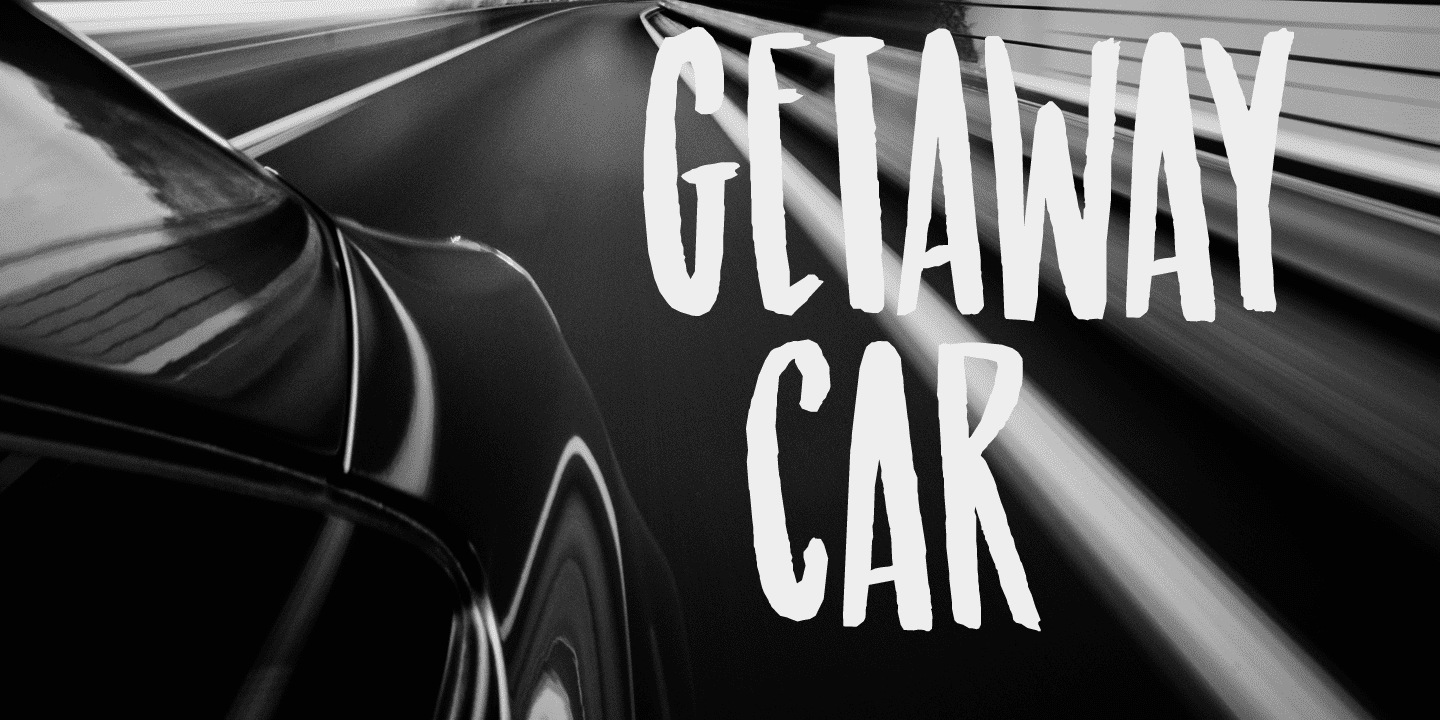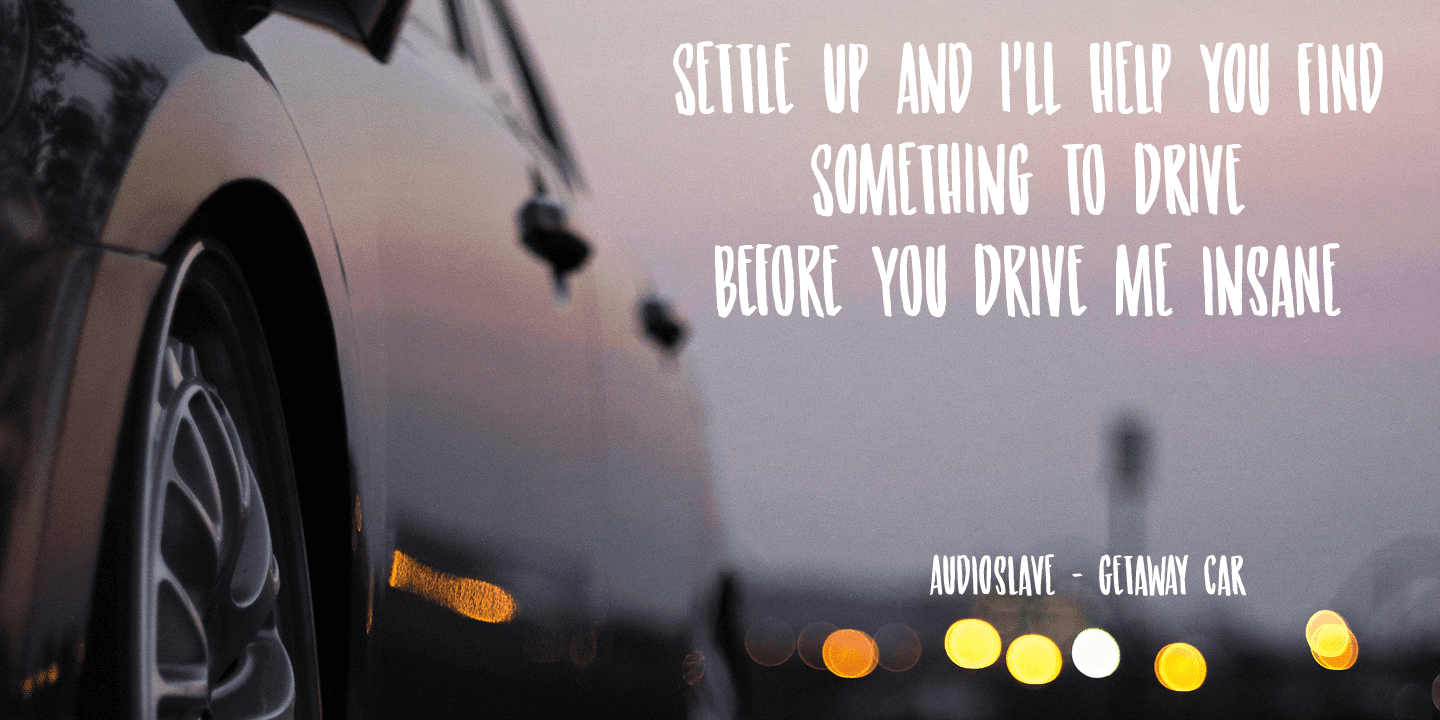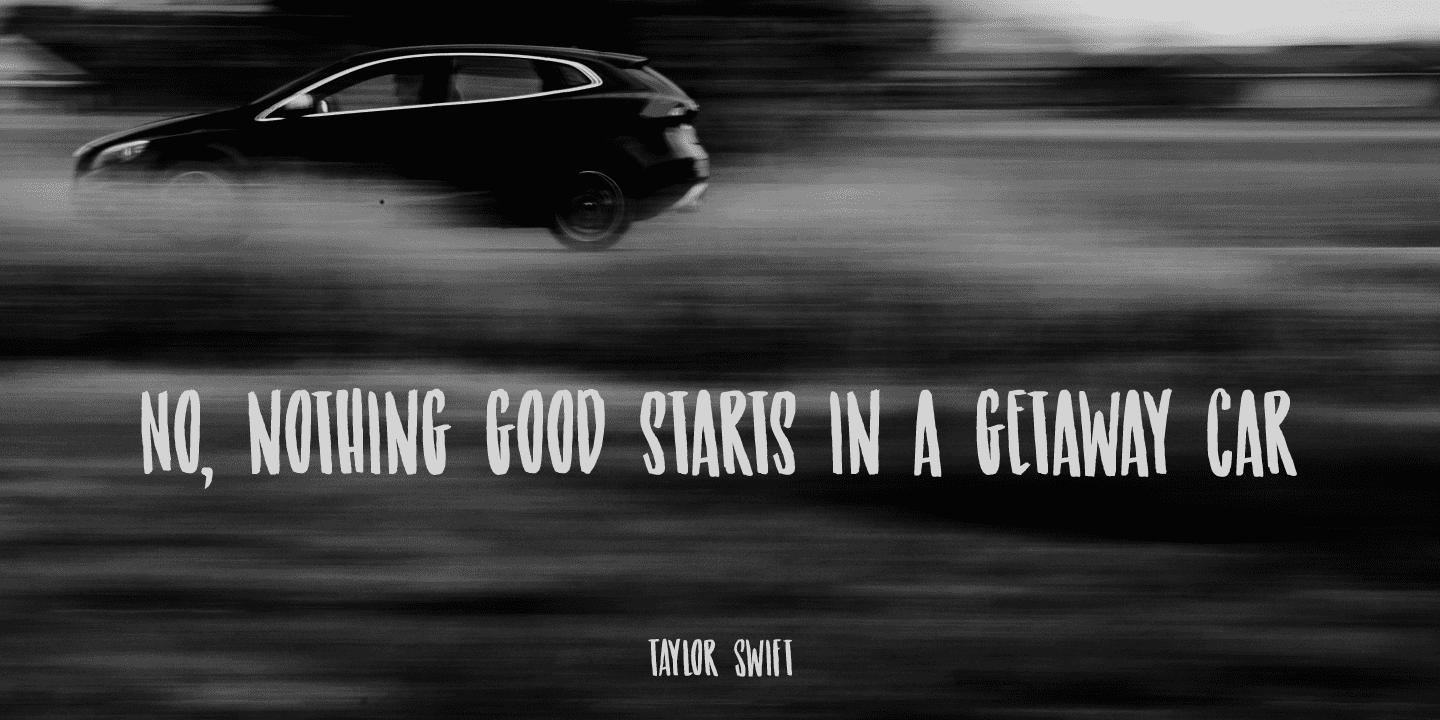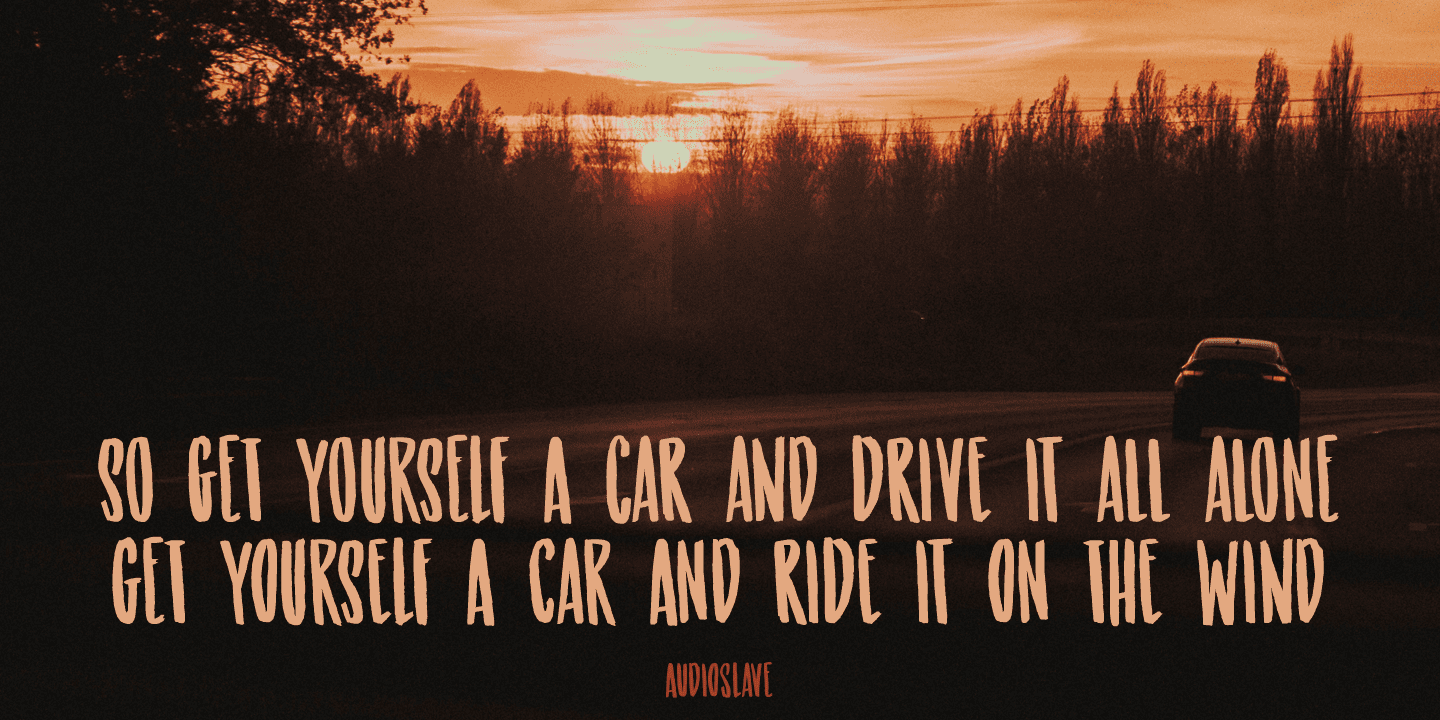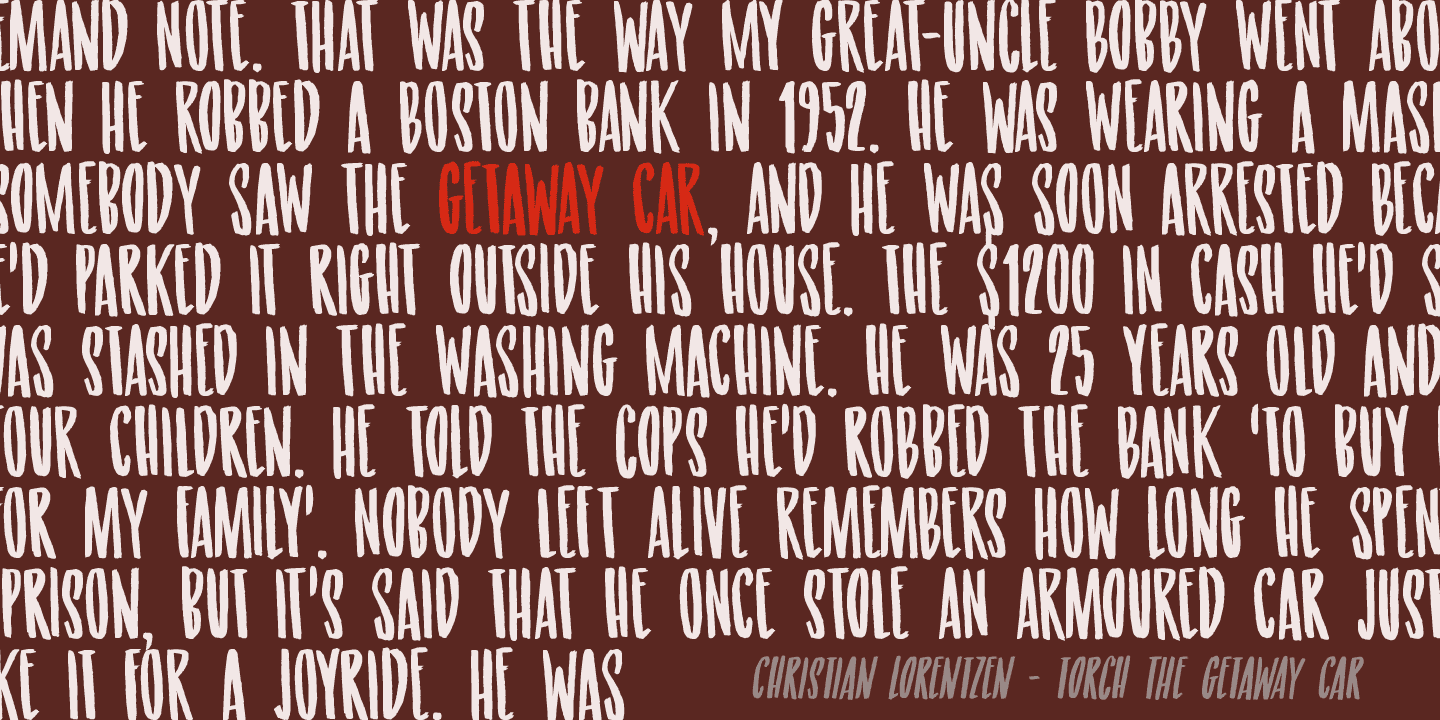
When I am working on a new font, I usually play some music, or have a song in my head. When I was working on this font, an Audioslave song called Getaway Car was playing in my head. Again: naming a font is not that difficult!
Getaway Car was made with a cheap brush and expensive Chinese ink. It is an all caps font, ideally suited for posters, book covers and designs that need a bold, rough & ready look.